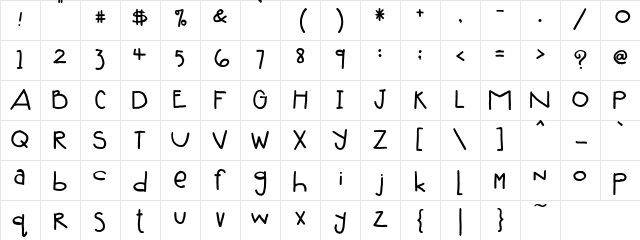
Complete EK Lollipops Regular glyph index. Displaying only characters natively supported by EK Lollipops Regular font.
EK Lollipops is a composed and adaptable typeface that performs quietly and consistently across a wide range of design contexts.